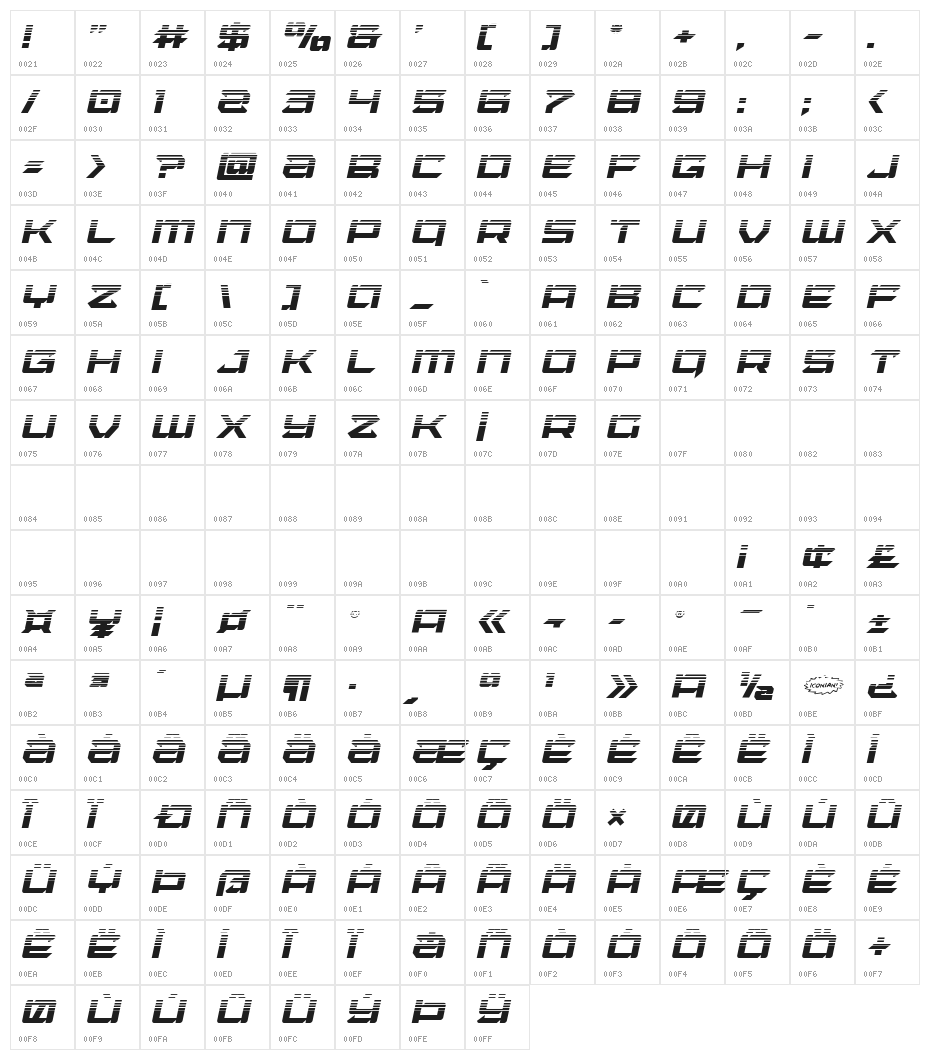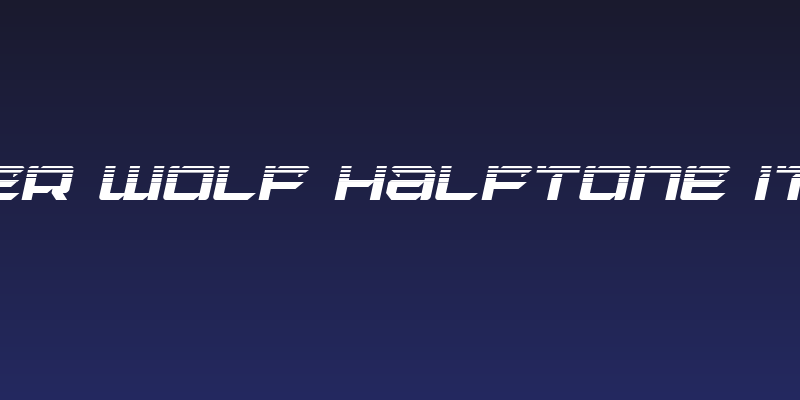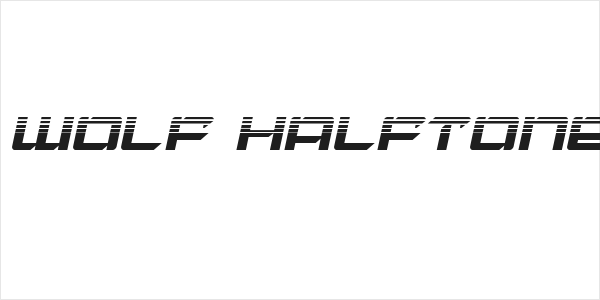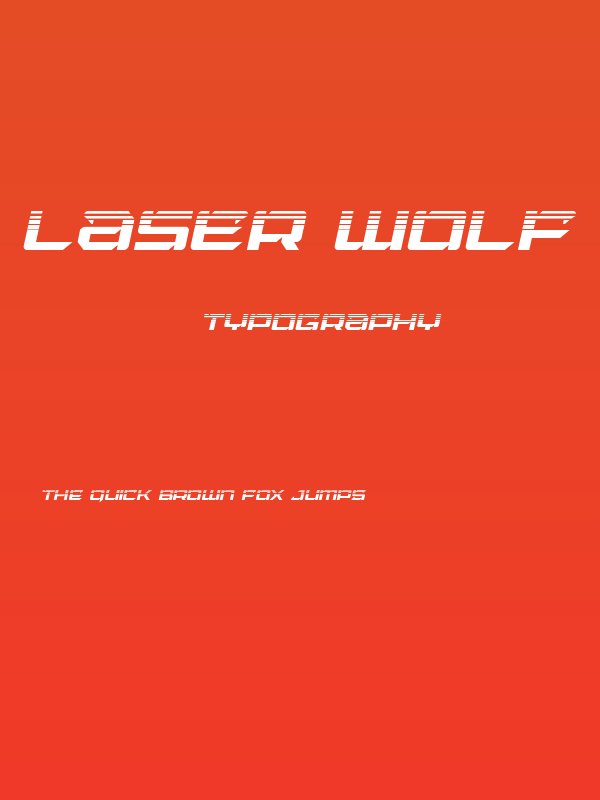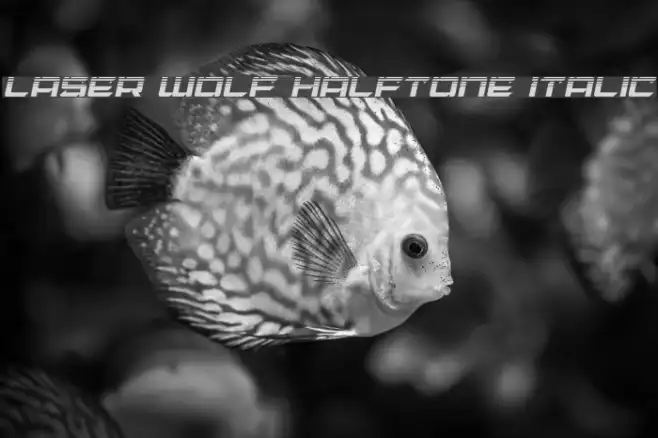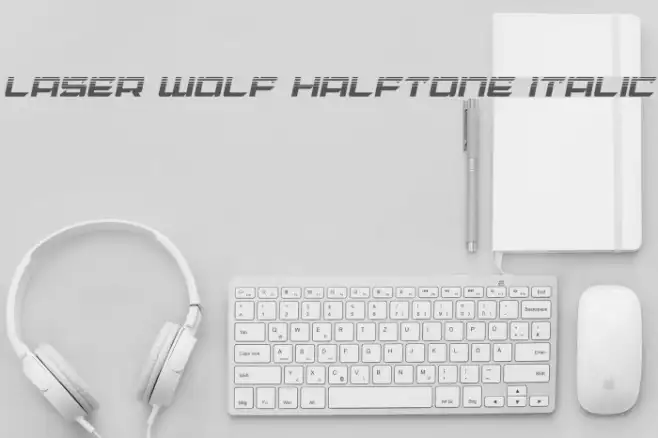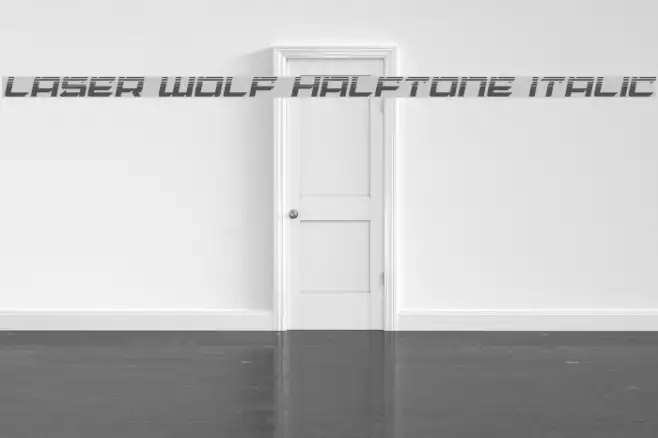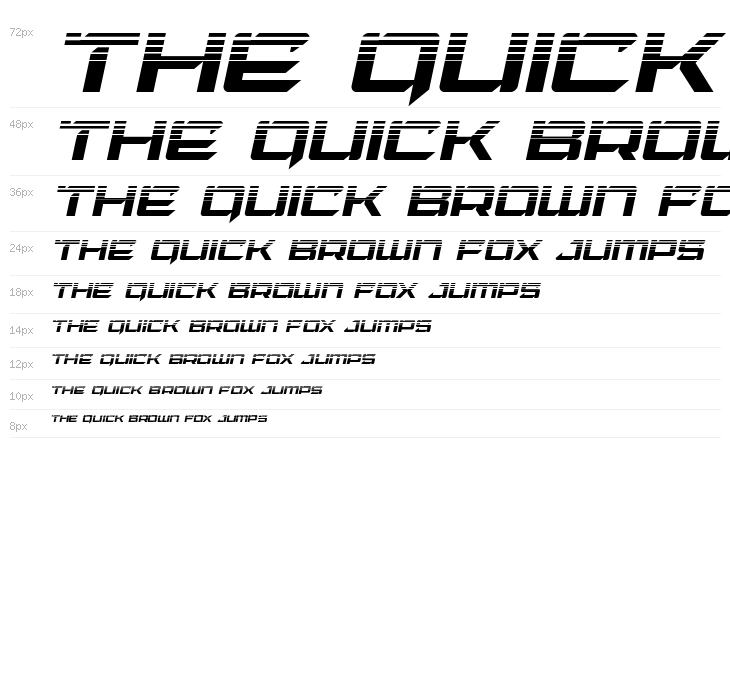
Laser Wolf Halftone Italic Font
Laser Wolf Halftone Italic Description
This font features a futuristic and dynamic design with a halftone effect that gives it a unique, digital appearance. The characters are italicized, adding a sense of motion and speed. Each letter is composed of bold, angular lines with a distinct pattern that resembles a digital glitch or laser cut. The uppercase and lowercase letters maintain a consistent style, with sharp edges and a slightly condensed form. The numbers and special characters follow the same design principles, ensuring a cohesive look across all elements. This font is ideal for projects that require a modern, tech-inspired aesthetic.